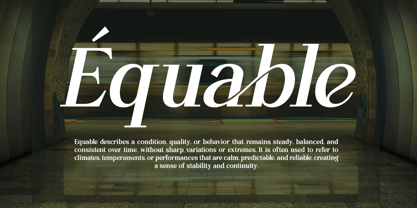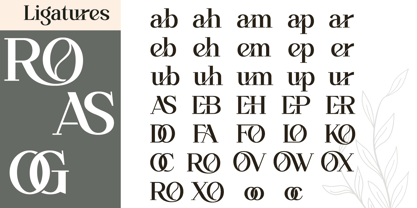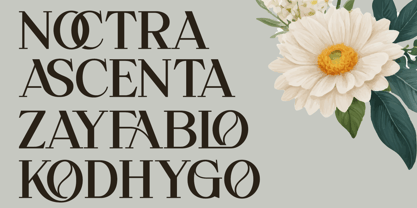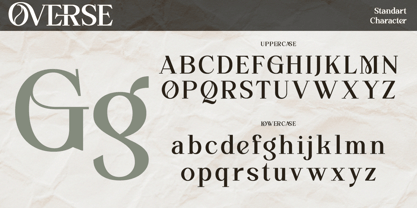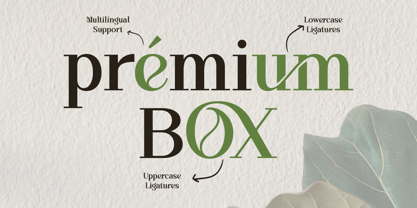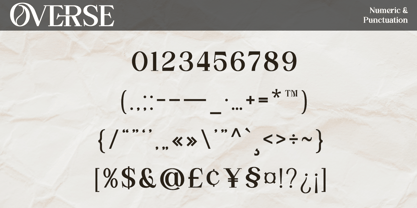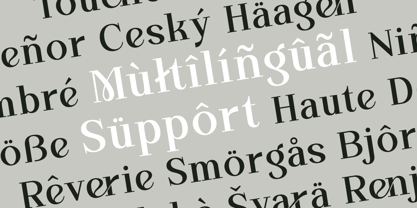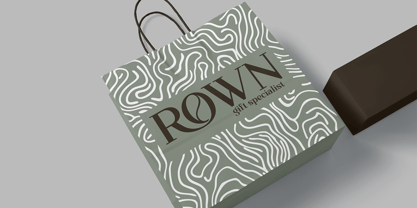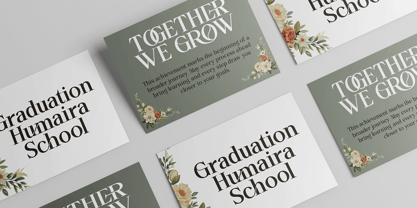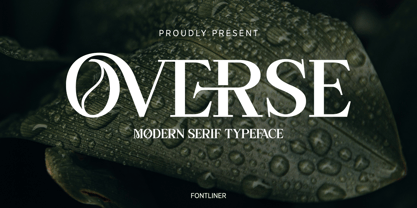
Overse
La familia tipográfica Overse fue diseñada por Ghina Luthfiarieska y publicada por Font Liner. Overse contiene 2 estilos y opciones de paquete familiar. Más información sobre esta familia
OVERSE is a modern serif typeface designed to embody elegance, clarity, and a strong visual presence. Drawing inspiration from contemporary editorial design and refined branding aesthetics, OVERSE features sharp serif details combined with balanced proportions, making it perfect for high-end creative projects that require sophistication and confidence. Crafted for versatility, OVERSE excels in various applications, including logos, branding systems, magazine layouts, headlines, packaging, and luxury visual identities. Its clean structure and modern serif characteristics ensure excellent readability while providing a distinctive, premium feel in both digital and print formats. Whether you're developing a fashion brand, editorial layout, corporate identity, or premium marketing materials, OVERSE offers a timeless yet modern typographic solution. This typeface is designed to elevate your design and leave a lasting impression with a professional and polished tone. Thanks, Have a wonderful Day! FontLiner